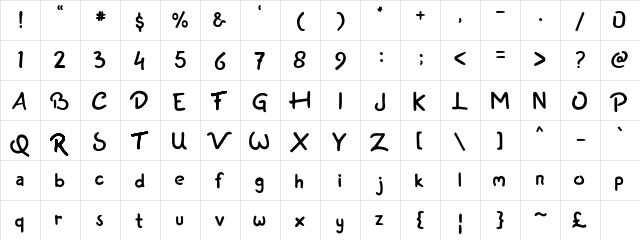
Ribchess Regular
| Foundry | ABs |
| Designer | Abduh |
Design Context for Ribchess Typeface
Ribchess is a composed and adaptable typeface that performs quietly and consistently across a wide range of design contexts.